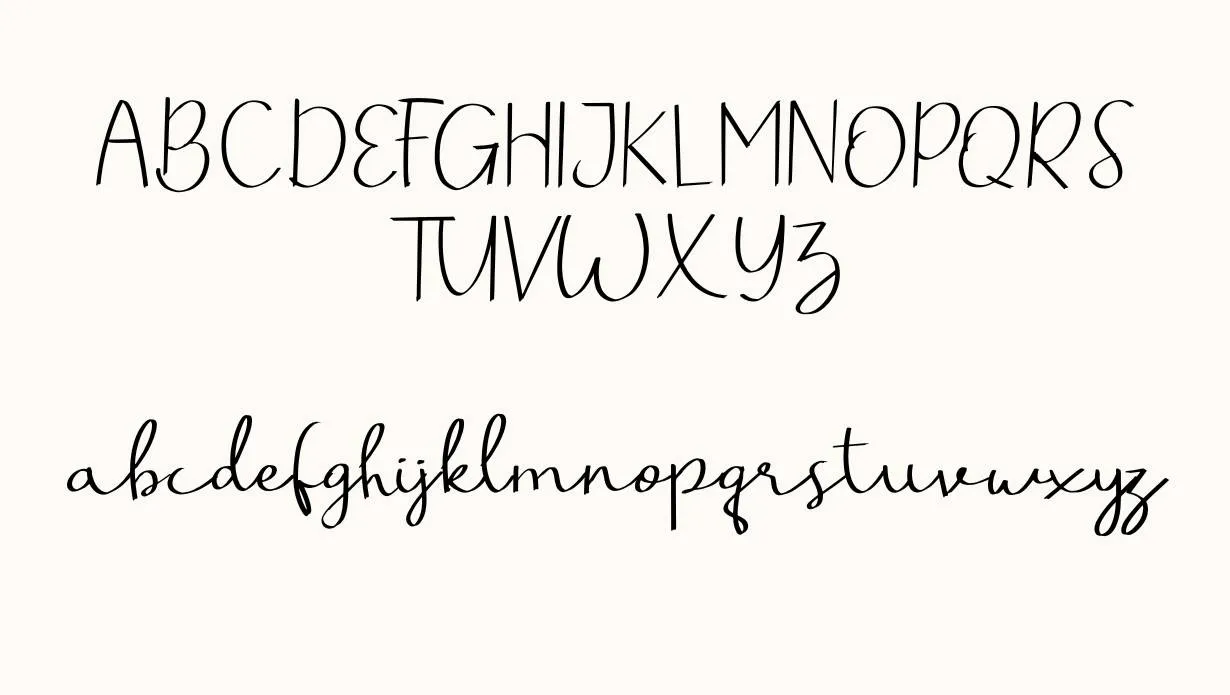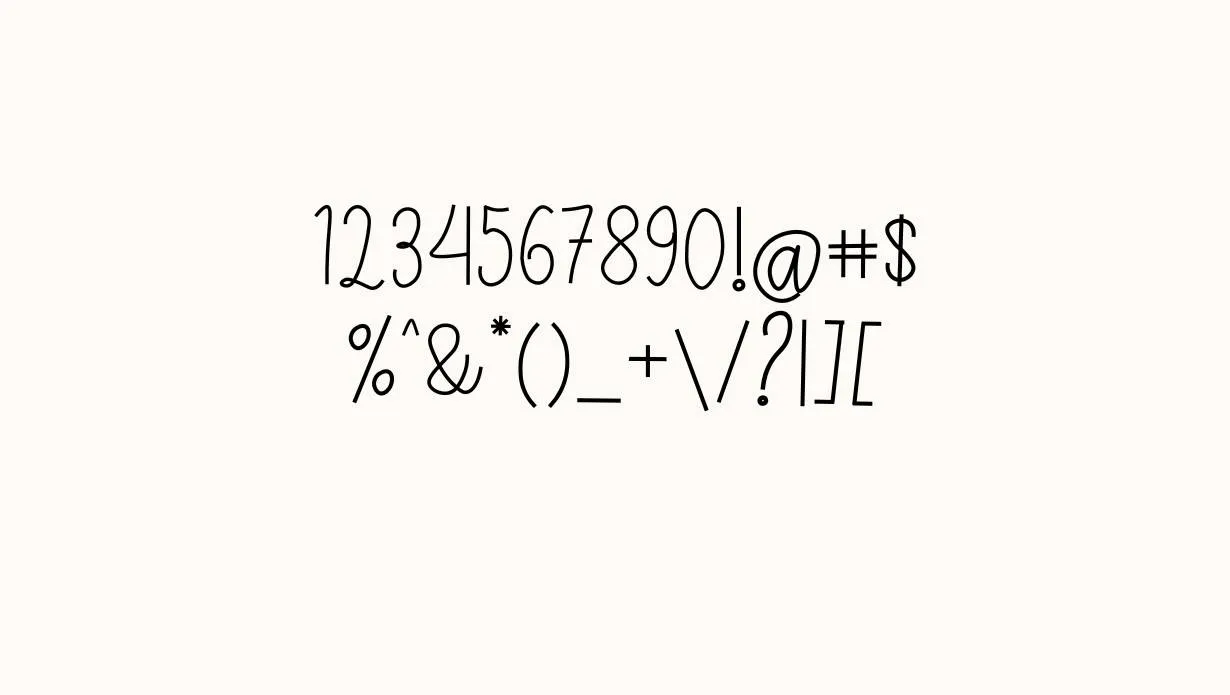
Athena Shield Font is a beautiful and elegant Script font that was crafted by Najmus Tsaqib and released by Tsaqibstyle in 1897. This typeface was titled after the Greek goddess Athena.
This typeface is specially made for those projects that want to be attractive and charming. You can combine this typeface with strange days font to making incredible and unforgettable designs.